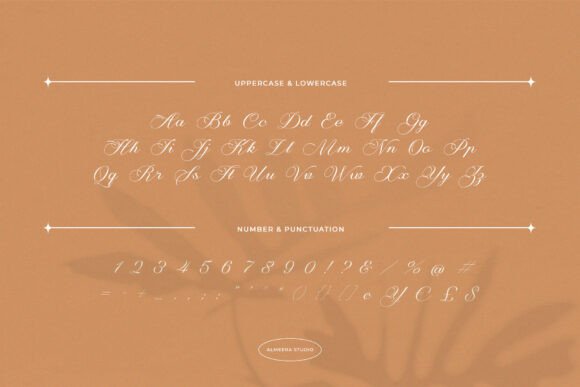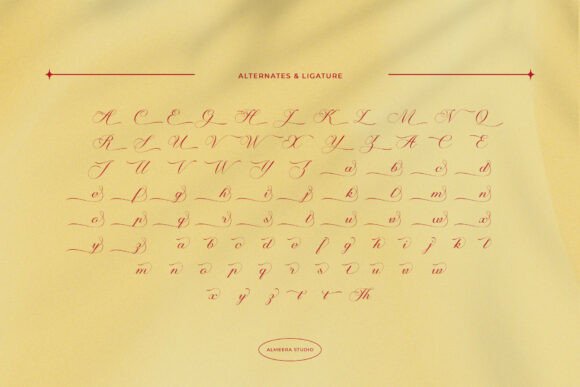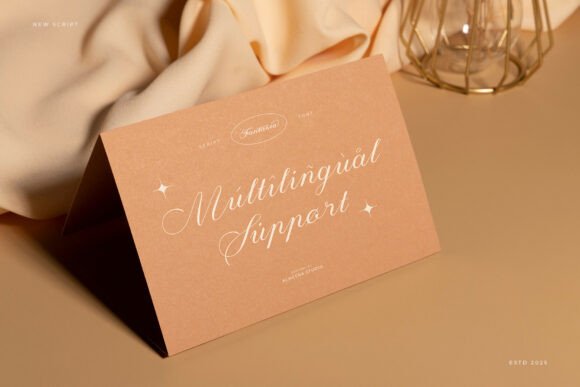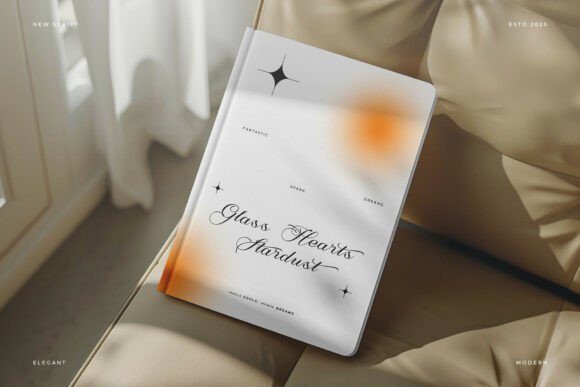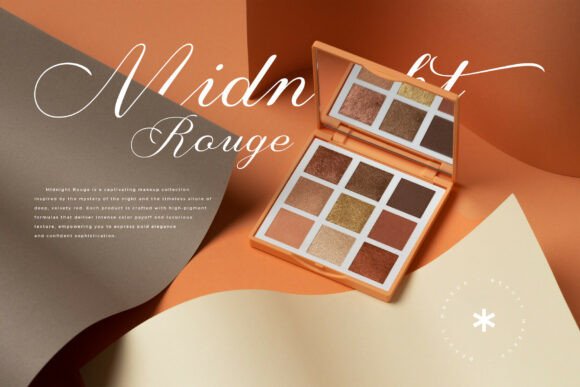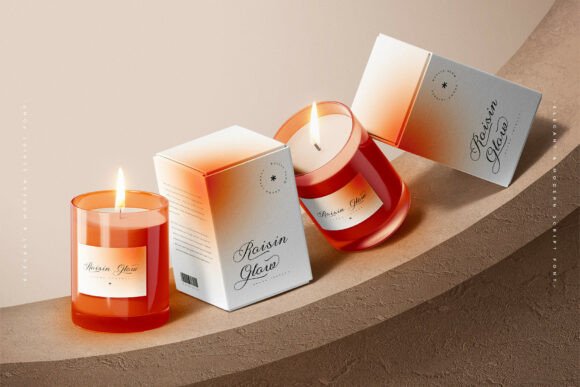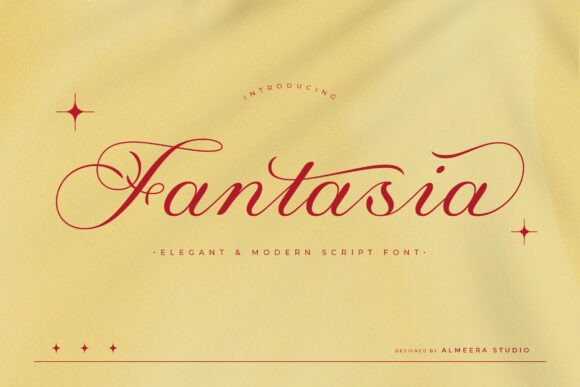
Fantasia Font: Elevate Your Typography with Elegance and Enchantment
Introducing Fantasia, a stunning script font that embodies the perfect blend of elegance and enchantment. With its delicate strokes and exquisite flourishes, Fantasia is designed to bring a sense of glamour and artistry to your typography. Whether you’re a designer, crafty DIY enthusiast, or simply someone who appreciates beautiful typography, Fantasia is the perfect choice for creating unforgettable impressions.
The Perfect Font for Luxury Branding and Creative Projects
Fantasia is more than just a font – it’s a statement piece. Its refined ligatures add a personal, handcrafted touch, making it perfect for luxury branding, wedding stationery, greeting cards, packaging, and fashion campaigns. With Fantasia, you can elevate your designs to new heights and create a lasting impression on your audience. The font’s timeless beauty makes it versatile enough to be used in both modern and classic designs, ensuring that your work will stand the test of time.
Key Features of Fantasia Font
- Delicate Strokes and Exquisite Flourishes: Fantasia’s unique design elements add a touch of sophistication and elegance to your typography.
- Refined Ligatures: The font’s refined ligatures provide a personal, handcrafted touch, making your designs stand out from the crowd.
- PUA-Encoded: Fantasia font is PUA-encoded, allowing effortless access to all glyphs, swashes, and alternate characters.
- Timeless Beauty: Fantasia’s classic design ensures that your work will remain stylish and relevant for years to come.
Use Fantasia Font for:
- Luxury Branding: Create high-end logos, business cards, and marketing materials that exude elegance and sophistication.
- Wedding Stationery: Make your wedding invitations, programs, and decorations truly unforgettable with Fantasia’s romantic and whimsical touch.
- Greeting Cards: Add a touch of luxury to your greeting cards and make them stand out from the crowd.
- Packaging: Elevate your product packaging with Fantasia’s sophisticated and eye-catching design.
- Fashion Campaigns: Use Fantasia to create stunning fashion campaigns that showcase your brand’s elegance and style.
Why Choose Fantasia Font?
Fantasia font is the perfect choice for designers and crafters who want to add a touch of elegance and enchantment to their typography. With its unique design elements, refined ligatures, and PUA-encoded features, Fantasia offers unparalleled versatility and creative freedom. Whether you’re working on a luxury branding project, wedding stationery, or simply want to add a touch of sophistication to your designs, Fantasia is the perfect choice.
Tips for Using Fantasia Font:
- Experiment with Swashes and Alternate Characters: Take advantage of Fantasia’s PUA-encoded features to add a personal touch to your designs.
- Mix and Match with Other Fonts: Combine Fantasia with other fonts to create unique and visually appealing typography.
- Pay Attention to Kerning and Tracking: Adjust the kerning and tracking to ensure that your text looks polished and professional.
Fantasia font is a game-changer for designers and crafters who want to elevate their typography to new heights. With its delicate strokes, exquisite flourishes, and refined ligatures, Fantasia offers a level of elegance and enchantment that’s hard to find in other fonts. Whether you’re working on a luxury branding project, wedding stationery, or simply want to add a touch of sophistication to your designs, Fantasia is the perfect choice. So why wait? Download Fantasia font today and start creating unforgettable impressions with your typography!